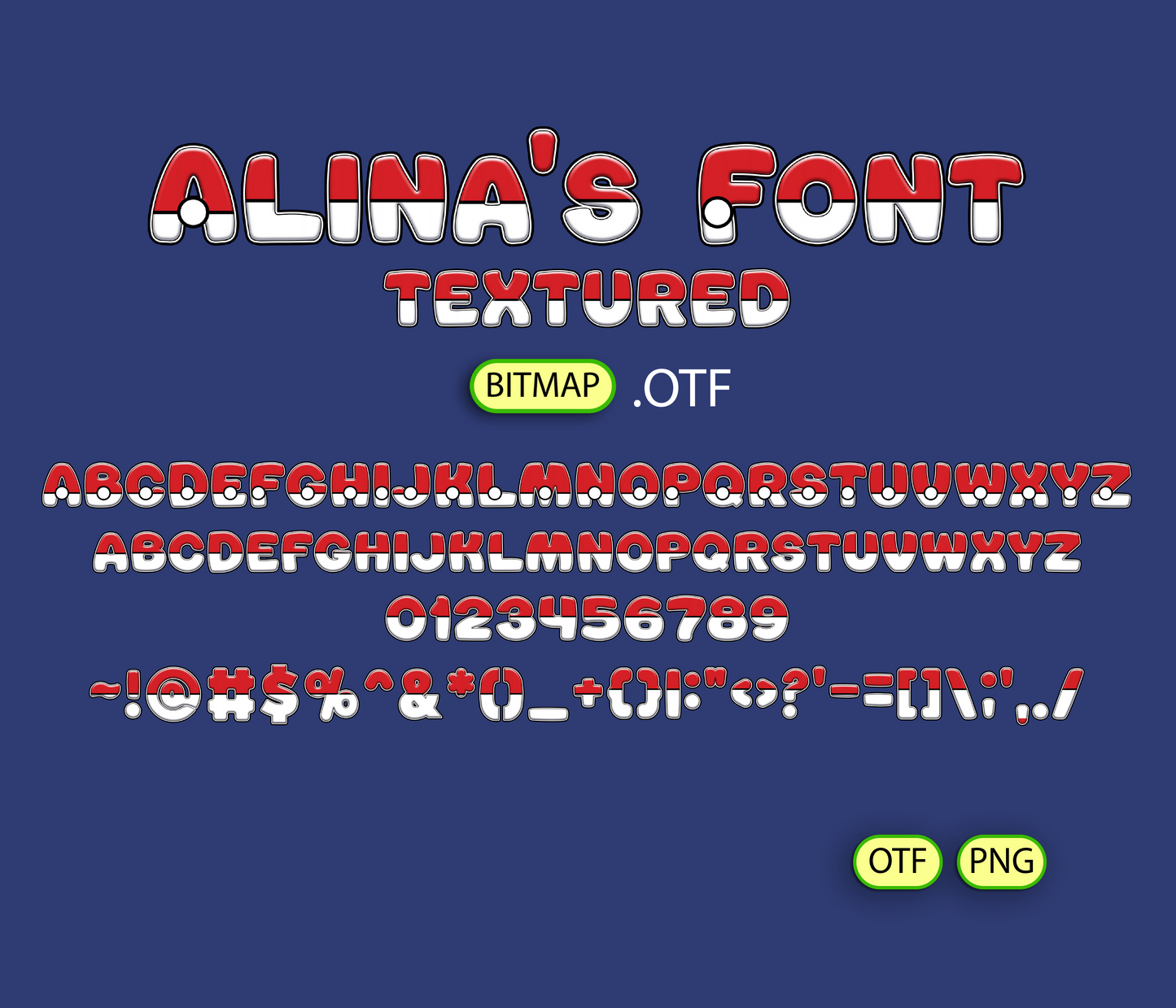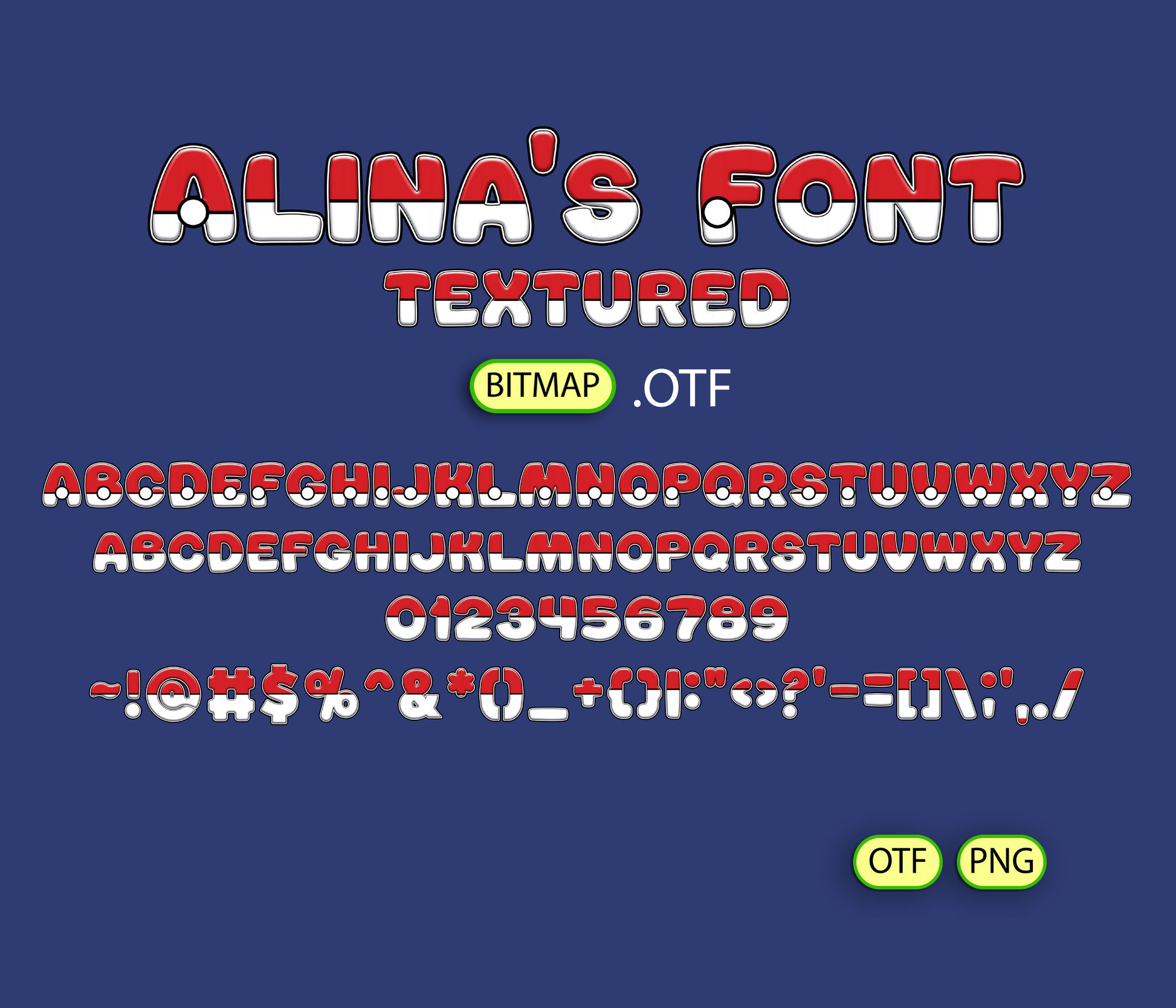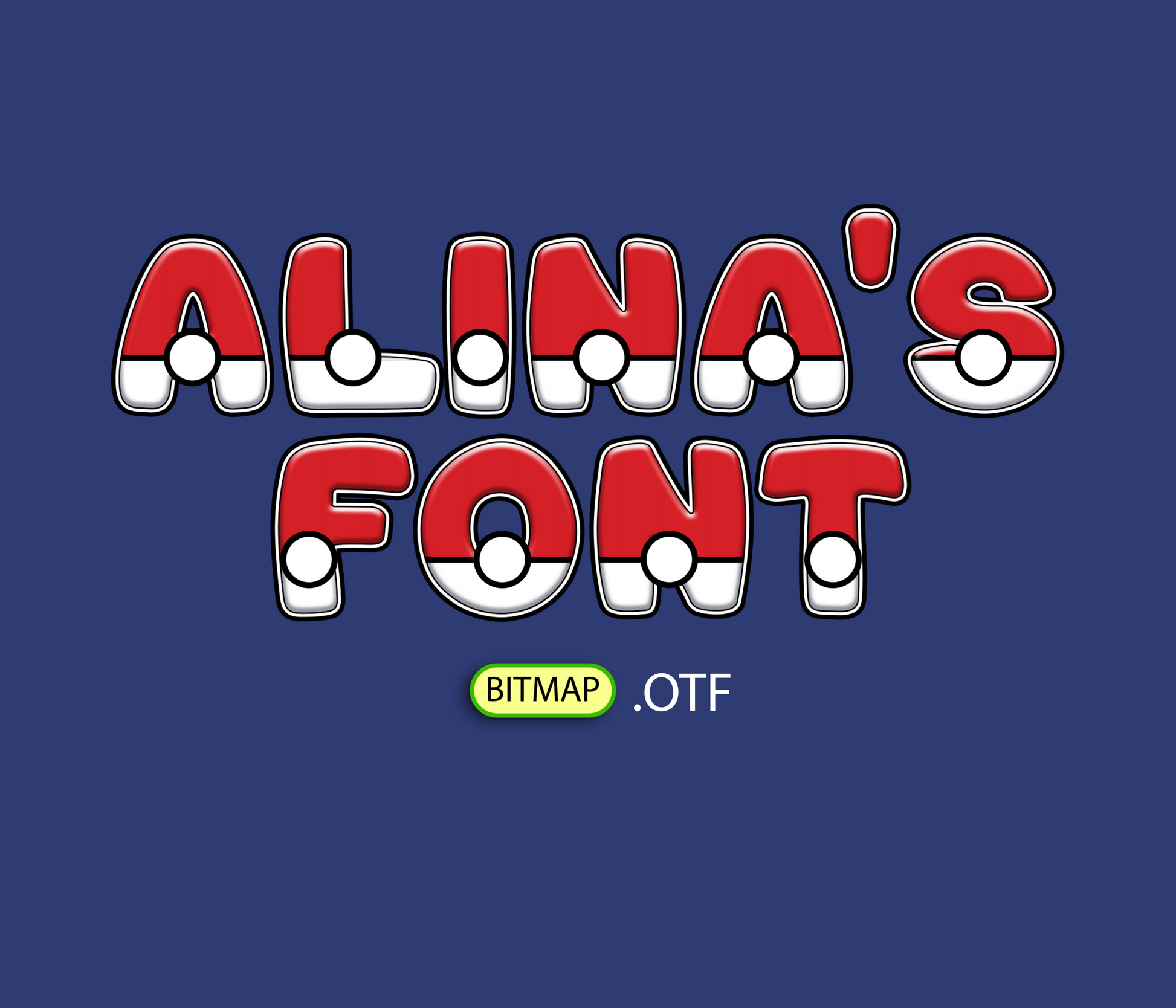
FREE Monster Capture Pattern Font
Monster Capture Typeface Textured
Embark on an adventure into the exciting world of creature collection with our Monster Capture Typeface, capturing the essence of epic journeys and legendary encounters. Perfect for gaming companies, toy manufacturers, children's entertainment brands, and creative professionals, this font brings the adventurous, nostalgic spirit of pocket monsters and training quests to your projects. Create captivating signage, gaming-themed products, or digital content with the playful, energetic essence of battle arenas and collection achievements.
Our Monster Capture Typeface features rounded, sphere-inspired shapes and dynamic characters reflecting the colorful yet competitive aesthetic of monster-collecting adventures. Ideal for:
- Gaming Industry: Create compelling logos, packaging, and promotional materials for mobile games, trading card companies, and collectible toy manufacturers
- Children's Design: Perfect for birthday party decorations, educational materials, and entertainment content that celebrates adventure and friendship themes
- Digital Media: Enhance websites, blogs, and social media with vibrant headers and graphics that express excitement and competitive spirit
- Entertainment Content: Add authentic character to gaming guides, collection catalogs, and promotional materials for adventure-themed products
- Personal Projects: Bring gaming charm to party invitations, craft projects, and home decor inspired by the aesthetics of collecting and adventure